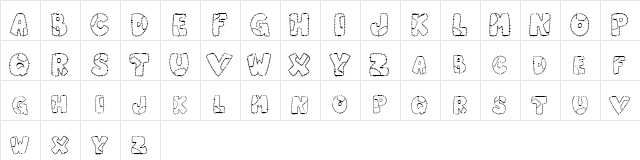
Patchwork Letter Regular
Design Context for Patchwork Letter Typeface
Patchwork Letter is a composed and adaptable typeface that performs quietly and consistently across a wide range of design contexts.